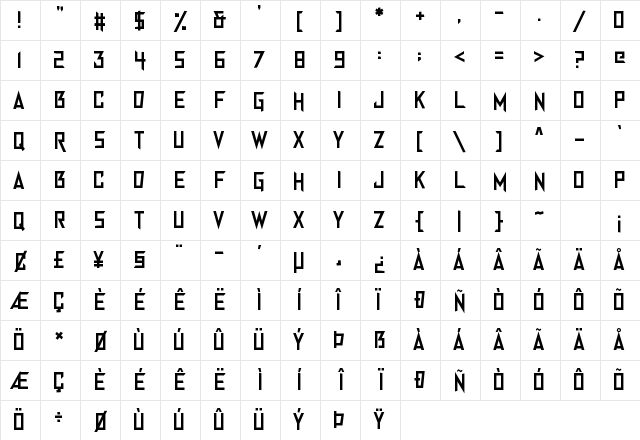
Anger Management Regular Free Font
Anger Management Regular
Design Context for Anger Management
Anger Management is a composed and adaptable typeface that performs quietly and consistently across a wide range of design contexts.